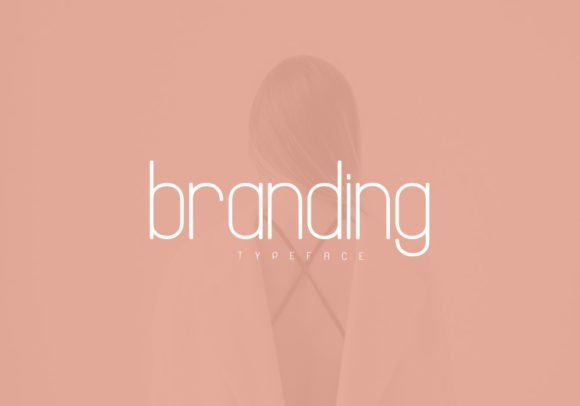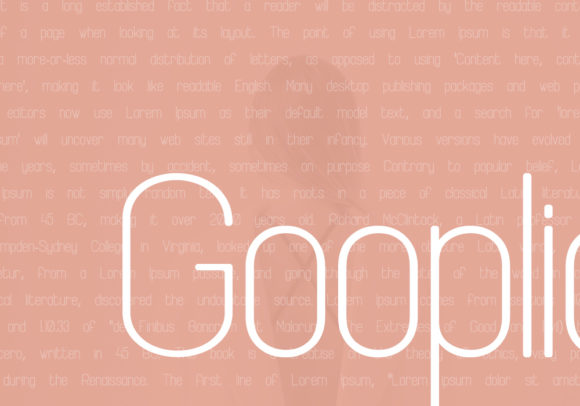
The Designer’s Delight: Exploring the Gooplicon Font
I’ll never forget the time I was working on a branding project for a trendy new coffee shop. My client was adamant that the logo needed to be modern, clean, and highly legible. I spent hours scouring font libraries, but nothing seemed quite right. That’s when I stumbled upon Gooplicon – a minimal and neat sans serif font that instantly caught my eye. It was love at first sight! 💫
What I Love About Gooplicon ✨
- ✅ Clean and Minimal Design: Gooplicon boasts a sleek, uncluttered aesthetic that’s perfect for modern designs.
- ✅ High Legibility: The font’s clear lines and balanced proportions make it easy to read, even at small sizes.
- ✅ Versatility: Gooplicon can effortlessly adapt to a wide range of projects, from digital interfaces to print materials.
- ✅ OpenType Features: This font comes with a range of OpenType features, including stylistic alternates and glyphs, allowing for creative experimentation.
While Gooplicon is an excellent font, it’s not without its limitations. For instance:
- ⚠️ Limited Character Set: Some users have noted that Gooplicon’s character set could be more extensive, particularly for non-English languages.
- ⚠️ Not Ideal for Body Text: Due to its minimalist design, Gooplicon may not be the best choice for lengthy body text, where a more traditional serif font might be more suitable.
The Designer Behind Gooplicon: A Backstory
While the origins of Gooplicon are shrouded in mystery, it’s easy to imagine that its designer was inspired by the clean lines and minimalism of modern design. Perhaps they sought to create a font that would effortlessly adapt to the ever-changing world of digital design, while still maintaining a touch of elegance and sophistication.
Q: What makes Gooplicon suitable for modern designs?
A: Gooplicon’s clean and minimalist design, combined with its high legibility, make it an excellent choice for modern designs that require a fresh and contemporary aesthetic.
Q: Does Gooplicon support OpenType features?
A: Yes, Gooplicon comes with a range of OpenType features, including stylistic alternates and glyphs, allowing for creative experimentation and customization.
Q: Is Gooplicon suitable for body text?
A: While Gooplicon is highly legible, its minimalist design may not make it the best choice for lengthy body text. Consider using a more traditional serif font for extended passages.